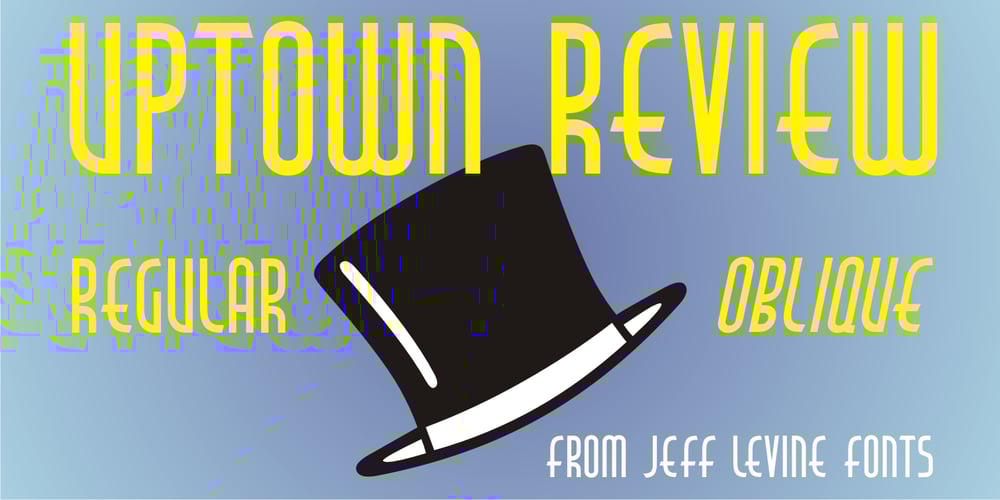
Uptown Review JNL
Uptown Review JNL font
Uptown Review JNL Font Family was designed by Jeff Levine and published by Jeff Levine. Uptown Review JNL contains 2 styles and family package options. Cover art for the 1933 sheet music of Harold Arlen and Ted Koehler’s “Stormy Weather” (from the musical production “Cotton Club Parade”) listed the cast of the show in a condensed hand lettered sans that typified the 1930s and the Art Deco era. This served as the inspiration for Uptown Review JNL; available in both regular and oblique versions. The Cotton Club was a whites-only night club which showcased black acts, and was originally located on 145th Street in Harlem from 1923 to 1935, then existed for a short time in the New York theater district from 1936 to 1940. After the Broadway incarnation of the club closed, its space was taken over by the Latin Quarter.